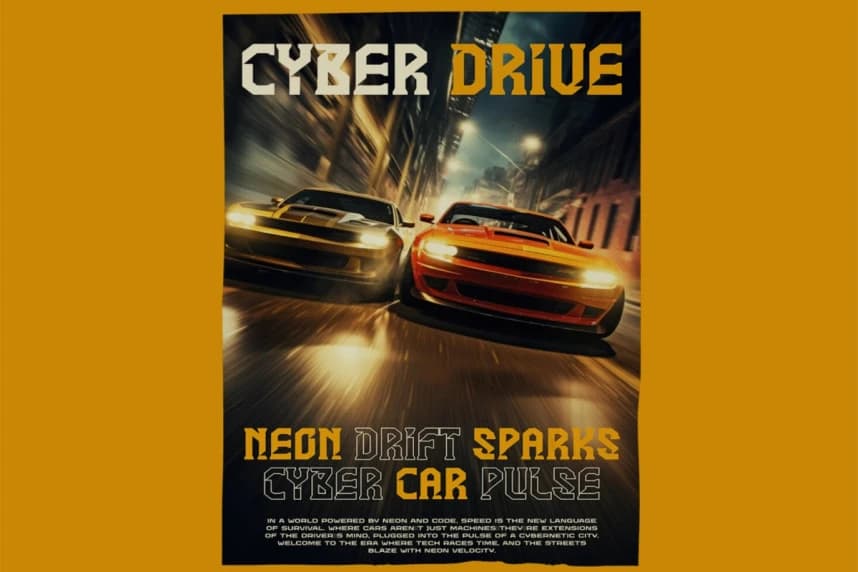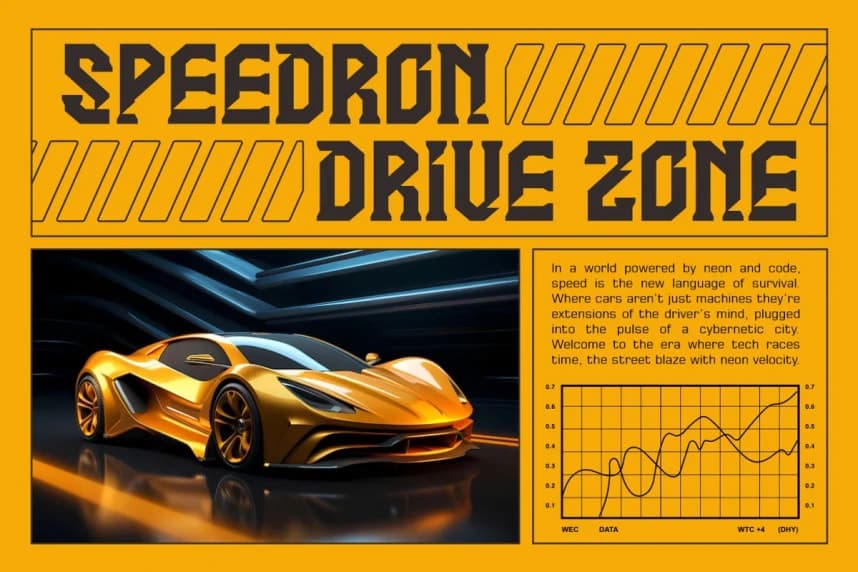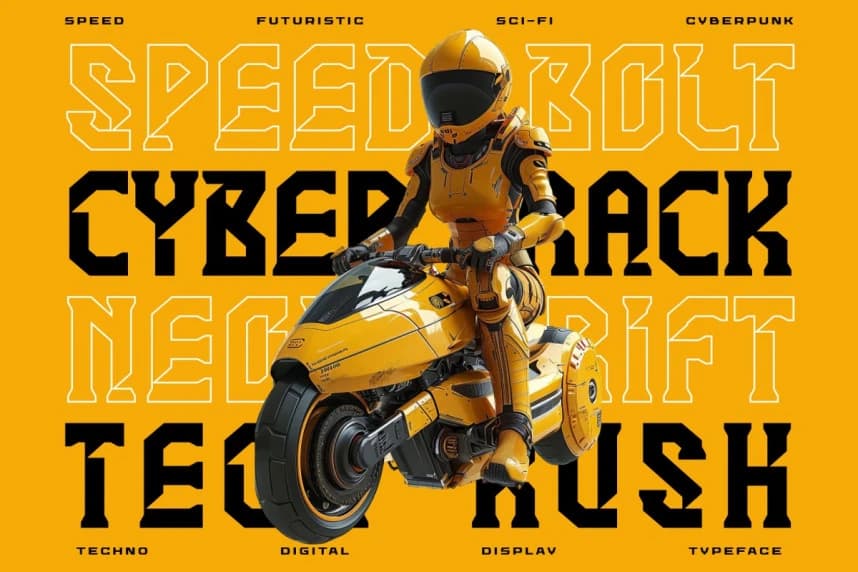
Speed Buster Font
Speed Buster Font is a high octane futuristic cyberpunk font engineered for adrenaline driven designs. The font’s letterforms are defined by angular cuts, diagonal terminals, and dynamic contrast, evoking the sensation of speed, velocity, and advanced technology.